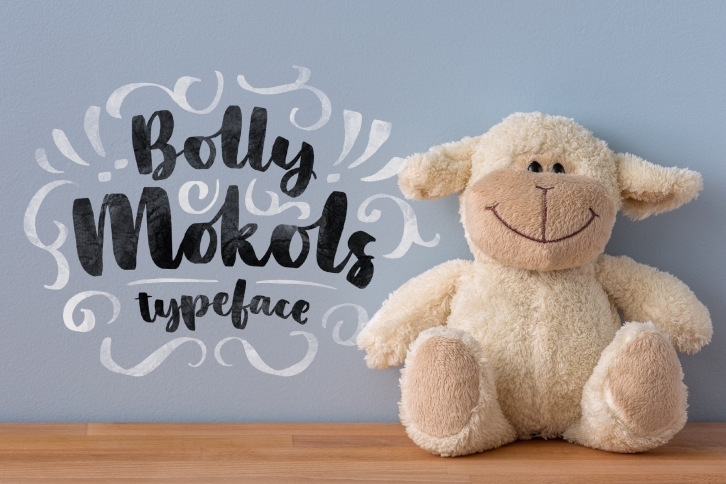
Bolly Mokols is a trendy and unique font with an authentic style. It was designed by alit suarnegara and it's a great choice for creative people who need such a font. It was released on December 12, 2019 and the file size is 6.5 MB. Bolly Mokols will add an organic vibe to any design idea!